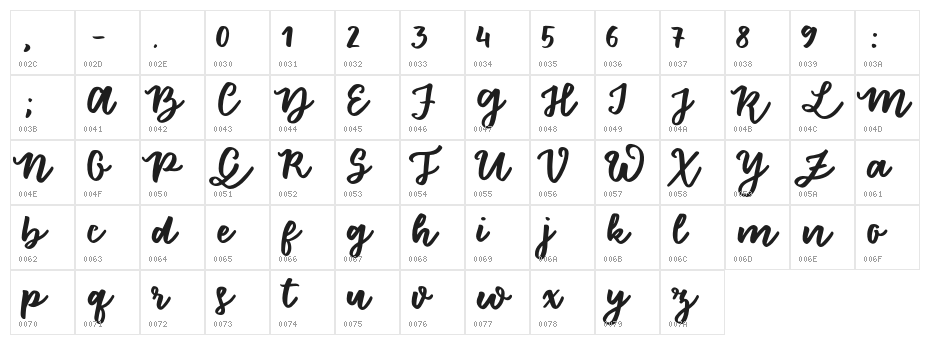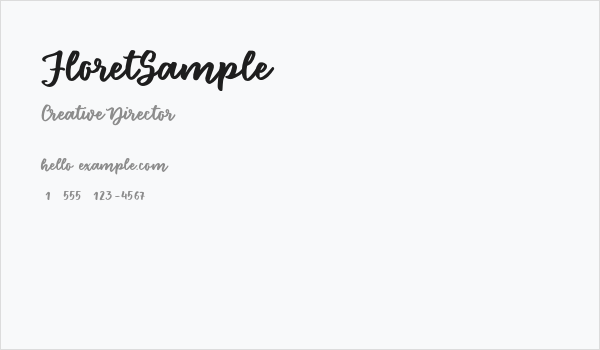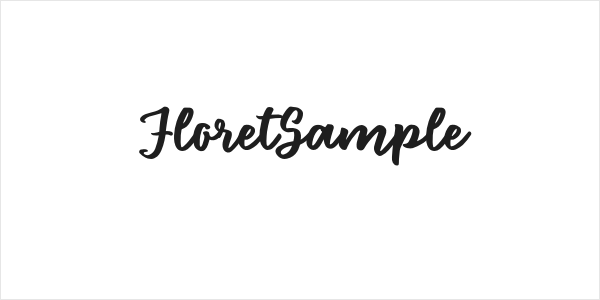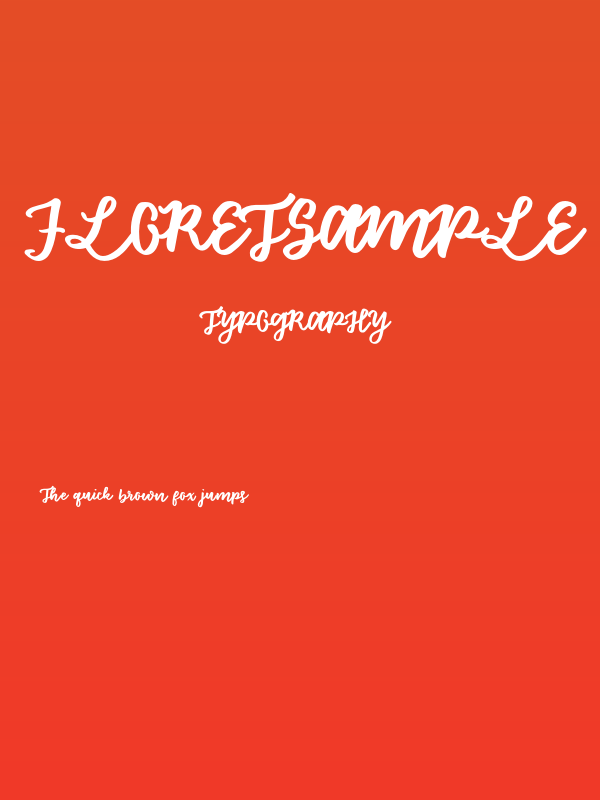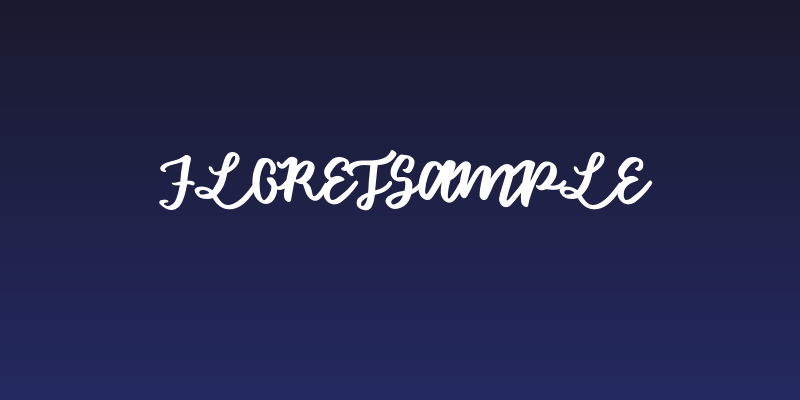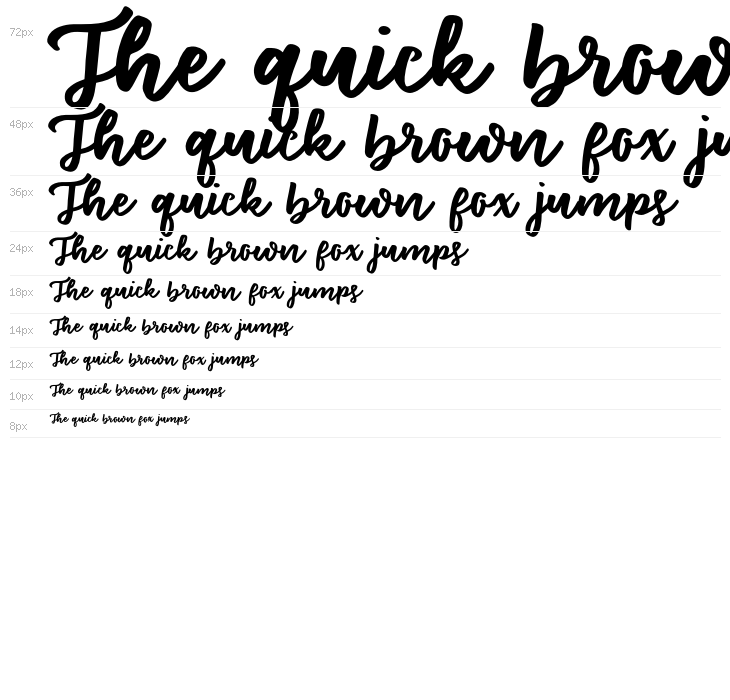
FloretSample Font
FloretSample Description
This font features a lively and flowing script style, characterized by its bold and expressive strokes. The letters are interconnected, creating a sense of continuity and movement. The uppercase letters exhibit a playful elegance, with flourishes that add a touch of sophistication. The lowercase letters maintain a consistent rhythm, enhancing readability while preserving the artistic flair. Numbers and special characters are crafted with the same attention to detail, ensuring a cohesive look across all elements. The overall appearance is both modern and classic, making it versatile for various design applications.
| Use Case | Logos, Headlines, Invitations |
| Proposed Projects | Ideal for wedding invitations, branding projects, greeting cards, and elegant packaging designs. |